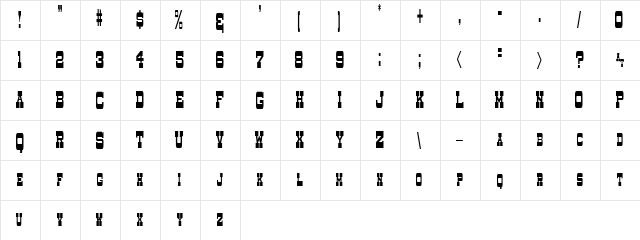
Dry Goods Narrow Sm. Caps JL Regular
| Foundry | Jeff's Fonts & Dingbats |
| Designer | Jeffrey N. Levine |
Design Context for Dry Goods Narrow Sm. Caps JL Typeface
Dry Goods Narrow Sm. Caps JL is a composed and adaptable typeface that performs quietly and consistently across a wide range of design contexts. The condensed width makes it efficient for tight spaces without sacrificing legibility.